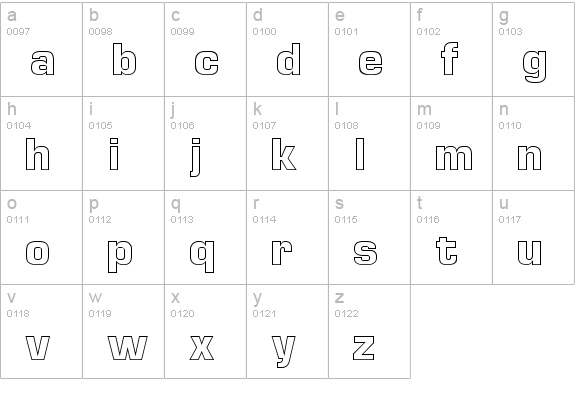
EuroTechnicBoldOutline Font Details
EuroTechnicBoldOutline is a modern and sleek display font that exudes confidence and sophistication. Its bold outlines and sharp edges make it perfect for creating eye-catching headlines, titles, and logos. This versatile font is suitable for a wide range of design projects, from branding to advertising to web design. And the best part? EuroTechnicBoldOutline is available for free download at FontsMarket.com. So whether you're a professional designer looking to add a new font to your collection or a hobbyist experimenting with typography, EuroTechnicBoldOutline is the perfect choice for your next project. Download it now and let your creativity shine with this stunning font!